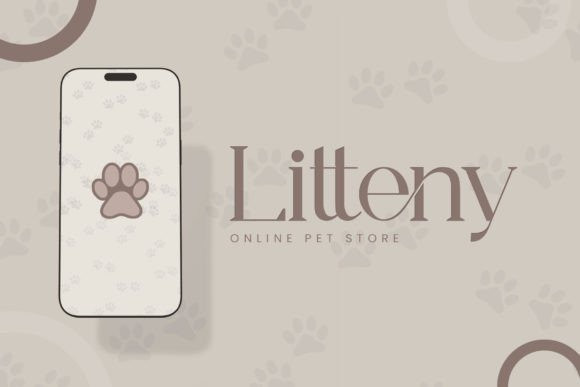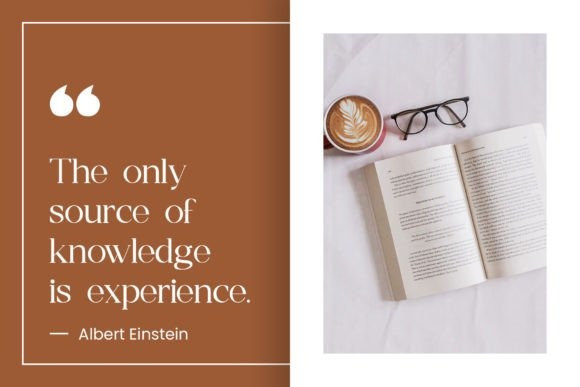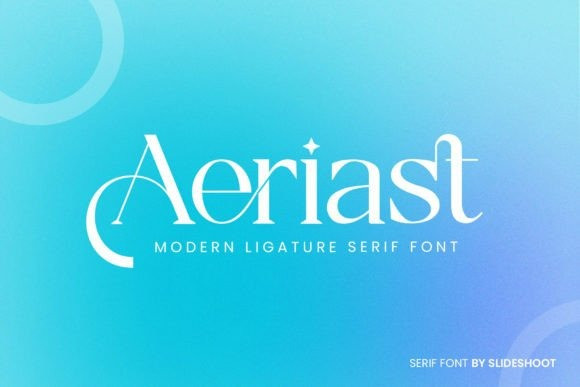
Aeriast Font
Aeriast Font is a balanced, smooth, elegant and stylish serif font. He has a beautiful character. It fits perfectly with invitation card designs, company logos, movie titles, movie names, business cards, book titles, brand names and various other designs. Aeriast Serif is a subtle serif font that exudes sophistication and elegance. Its stylish alternations and ligatures make this font the perfect partner for any project.